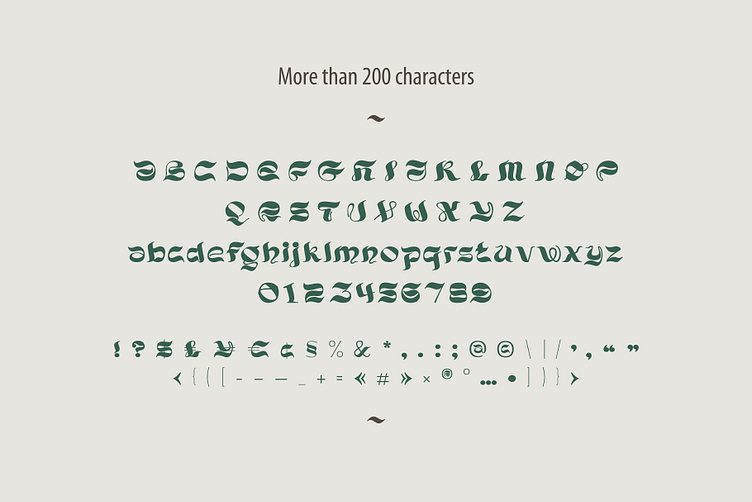
Pagesso new renaissance script font
Introducing my new Renaissance script typeface Pagesso. Vintage font with unique decoration elements. Perfect to use in any fashion labels, glamour posters, luxury identity, etc.